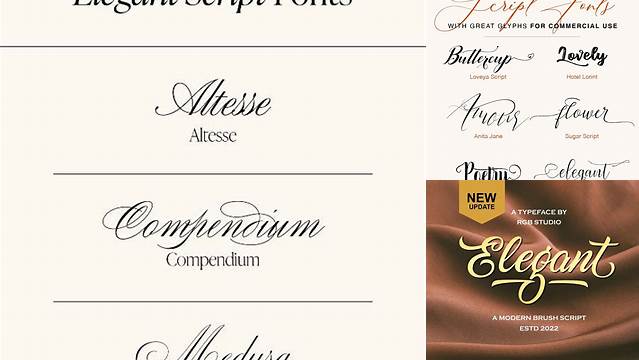
Elegant Script Fonts: Free Downloads For Stunning Designs
Hey guys! Are you looking to add a touch of elegance and sophistication to your designs? Well, you've come to the right place! Nothing beats a beautifully crafted script font to elevate your projects, whether it's for wedding invitations, branding, or simply adding a personal touch to your creative endeavors. Finding the perfect elegant script font doesn't have to break the bank. Letâs dive into the world of free downloads and explore how you can get your hands on some stunning typefaces.
1. What Makes a Script Font Elegant?
So, what exactly makes a script font elegant? It's more than just fancy swirls and loops. An elegant script font often features a harmonious balance of thick and thin strokes, graceful curves, and a sense of fluidity that mimics handwriting. The spacing between letters, known as kerning, also plays a crucial role in readability and overall aesthetic appeal. Think of fonts like Brush Script, Pacifico, or even Great Vibes â they all have a certain charm and refinement that sets them apart. When choosing an elegant script font, consider the overall tone you want to convey. Is it classic and timeless, or modern and playful? The right font can set the mood and make your design truly shine. The beauty of an elegant script font is its ability to convey emotion and personality. It adds a human touch that can't be replicated by more rigid, geometric fonts. Whether you're designing a logo, creating a poster, or crafting a heartfelt message, the right elegant script font can make all the difference.
5. Using Script Fonts in Branding
When it comes to branding, an elegant script font can be a powerful tool. It can add a touch of personality and sophistication to your logo, website, and marketing materials. However, it's important to use script fonts strategically. Overusing them can make your brand look cluttered or unprofessional. Instead, consider using a script font for your logo or headline and pairing it with a more readable sans-serif font for body text. This creates a nice contrast and ensures that your message is clear and easy to read. Also, think about your target audience and the overall image you want to project. A delicate, flowing script font might be perfect for a wedding planner, while a bolder, more modern script font might be better suited for a fashion brand. Make sure that the elegant script font you choose complements your overall brand identity and resonates with your target audience. The font becomes part of the brand's personality, so choose wisely! Choosing the right font helps to create a consistent and memorable brand experience.
6. Pairing Script Fonts with Other Fonts
Pairing fonts is an art, guys! An elegant script font looks amazing, but using it alone for everything can be overkill. The key is to find a complementary font that balances the script's flair with readability. A classic pairing is a script font with a simple sans-serif font. Think of something like Open Sans or Montserrat. These fonts are clean and unobtrusive, allowing the script font to take center stage. You could also pair a script font with a serif font, like Lora or Merriweather, for a more traditional look. Experiment with different combinations until you find something that feels right. The goal is to create a visual hierarchy that guides the reader's eye and makes your design easy to navigate. When pairing fonts, pay attention to things like font weight, size, and letter spacing. The elegant script font you choose should complement, not clash with, your secondary fonts. With a little practice, you'll be a font-pairing pro in no time! Remember, the right combination can elevate your design and make it truly stand out.
7. Script Fonts for Wedding Invitations
Planning a wedding? An elegant script font is practically a must-have for your invitations! It adds a touch of romance and sophistication that's perfect for setting the tone for your special day. When choosing a script font for wedding invitations, consider the overall style of your wedding. Is it formal and traditional, or more relaxed and bohemian? A classic, flowing script font like Shelley Allegro Script is perfect for a traditional wedding, while a more modern, handwritten font like * āĻĢāĻā§āĻā§āϰāĻžāĻĢāĻžāϰ* might be better suited for a casual celebration. Also, think about the readability of the font. While a super ornate script font might look beautiful, it could be difficult for guests to read. Choose a font that's both elegant and legible. To add the ultimate touch, consider adding some flourishes or embellishments to your script font. The elegant script font will become a cherished part of your invitation design. This can be a great way to personalize your invitations and make them truly unique. A beautiful script font can transform your wedding invitations into cherished keepsakes.
8. Designing Logos with Script Fonts
Using an elegant script font in your logo can make your brand stand out, but it's crucial to do it right. Logos need to be versatile and readable at different sizes, so choose a script that remains clear even when it's small. Also, consider how the script reflects your brand's personality. A delicate, flowing script might be perfect for a beauty brand, while a bolder script could work for a creative agency. Think about the colors and imagery that will accompany your logo. The elegant script font you select should complement those elements and contribute to a cohesive brand identity. Test your logo on different backgrounds and in different sizes to ensure it looks good in all contexts. A well-designed logo using a script font can be memorable and create a lasting impression. However, if the script is too hard to read or doesn't align with your brand, it could have the opposite effect. So, take your time and experiment with different options until you find the perfect fit.
9. Free vs. Premium Script Fonts: What's the Difference?
Okay, let's talk about free versus premium fonts. While there are tons of great elegant script fonts available for free, premium fonts often offer a higher level of quality, more extensive character sets, and better support from the font designer. Premium fonts are also less likely to be overused, which can help your designs stand out. However, that doesn't mean you should automatically dismiss free fonts. Many talented designers offer high-quality fonts for free, especially for personal use. The key is to do your research and carefully evaluate each font before using it. Consider things like the legibility, versatility, and overall aesthetic appeal. If you're working on a professional project, investing in a premium font might be worth it. But if you're just starting out or working on a personal project, there are plenty of great elegant script font options available for free. Ultimately, the best font is the one that meets your needs and fits your budget.
10. The Importance of Kerning in Script Fonts
Kerning, guys, is super important, especially with elegant script fonts. Kerning refers to the spacing between individual letters. In script fonts, where letters often connect, kerning can make or break the readability of your text. Poor kerning can result in letters that are too close together or too far apart, making the word look awkward and difficult to read. Good kerning ensures that the letters flow smoothly and evenly, creating a visually appealing and legible word. Many professional fonts come with built-in kerning tables that automatically adjust the spacing between letters. However, you might need to manually adjust the kerning in some cases, especially if you're using a free font. Most design software allows you to adjust the kerning using the character panel. Experiment with different kerning values until you achieve a balanced and harmonious look. Mastering kerning is essential for creating professional-looking typography with elegant script fonts. Don't underestimate the power of those small adjustments! They can make a huge difference in the overall appearance of your design.
11. Calligraphy-Inspired Script Fonts
Elegant script fonts often draw inspiration from traditional calligraphy. These fonts mimic the flowing strokes and graceful curves of hand-lettered calligraphy, adding a touch of artistry and sophistication to your designs. Calligraphy-inspired fonts can range from classic and formal to modern and playful, so there's something for every style. When choosing a calligraphy-inspired script font, consider the overall mood you want to create. A formal calligraphy font like Edwardian Script ITC might be perfect for wedding invitations or certificates, while a more casual calligraphy font like āύā§āĻĻāĻž could be used for branding or social media graphics. Calligraphy-inspired fonts often have elaborate flourishes and embellishments, adding to their visual appeal. However, it's important to use these elements sparingly, as overusing them can make your design look cluttered. The elegant script font can evoke the timeless elegance of calligraphy. Experiment with different calligraphy-inspired fonts to find the perfect one for your project. These fonts add a personal touch that's hard to resist.
12. Modern Script Fonts for a Contemporary Look
If you're looking for a more contemporary feel, modern script fonts are the way to go. These fonts often feature cleaner lines, simpler shapes, and a more minimalist aesthetic than traditional script fonts. Modern script fonts are perfect for branding, websites, and other designs that need a touch of elegance without feeling too stuffy. When choosing a modern script font, consider the overall tone of your design. A bold, geometric script font like āĻžāĻĻāĻŋāϝāĻŧāĻž might be perfect for a tech startup, while a lighter, more delicate script font like āϰā§āĻļāĻŽāĻž could be used for a fashion brand. Modern script fonts often pair well with sans-serif fonts, creating a balanced and contemporary look. The elegant script font you use can contribute to a sleek and stylish design. These fonts are a great way to add personality to your project without sacrificing readability.
13. The Best Script Fonts for Logos
Creating a memorable logo requires the right font, and an elegant script font can be a great choice. However, not all script fonts are created equal when it comes to logo design. The best script fonts for logos are those that are both visually appealing and highly legible, even at small sizes. Consider the personality of your brand when choosing a script font. A delicate, flowing script might be perfect for a beauty or wellness brand, while a bolder, more assertive script could work for a creative agency or tech company. The elegant script font should also be scalable and versatile, looking good on both a website and a business card. Avoid script fonts that are too ornate or difficult to read, as these can detract from the overall impact of your logo. Test your logo with different script fonts and get feedback from others to see which ones resonate best. A well-chosen script font can elevate your logo and make your brand stand out from the competition.
14. Script Fonts for Social Media Graphics
In the fast-paced world of social media, eye-catching visuals are essential for grabbing attention. An elegant script font can add a touch of personality and flair to your social media graphics, helping your posts stand out from the crowd. When using script fonts for social media, it's important to prioritize readability. Choose a script that is clear and easy to read, even on small screens. Avoid script fonts that are too ornate or stylized, as these can be difficult to decipher. Also, consider the overall tone of your social media feed. A playful, handwritten script might be perfect for a lifestyle brand, while a more formal script could be used for a professional services company. The elegant script font should complement your brand's voice and aesthetic. Experiment with different script fonts and color combinations to create social media graphics that are both visually appealing and on-brand. With the right script font, you can create a consistent and engaging social media presence.
15. Handwriting Script Fonts for a Personal Touch
If you want to add a personal and authentic touch to your designs, handwriting script fonts are an excellent choice. These fonts mimic the look and feel of natural handwriting, creating a warm and inviting aesthetic. Handwriting fonts are perfect for invitations, greeting cards, and other projects that require a personal touch. When choosing a handwriting script font, consider the overall style you want to convey. A neat and legible handwriting font might be suitable for professional correspondence, while a more whimsical and expressive handwriting font could be used for personal projects. The elegant script font should reflect the personality of the writer. Handwriting fonts often have slight variations in letterforms and spacing, adding to their authenticity. Use handwriting fonts sparingly, as overusing them can make your design look cluttered. A well-chosen handwriting font can add a touch of warmth and personality to any project.
16. Vintage Script Fonts for a Retro Feel
For designs that evoke a sense of nostalgia and old-world charm, vintage script fonts are the perfect choice. These fonts often feature ornate details, swashes, and serifs, reminiscent of vintage signage and advertising. Vintage script fonts are ideal for creating logos, posters, and packaging designs with a retro aesthetic. When selecting a vintage script font, consider the specific era you want to evoke. A Victorian-era script might be perfect for a tea brand, while a mid-century modern script could work for a retro diner. The elegant script font you select should reflect the aesthetic of the past. Vintage script fonts often have a distressed or textured appearance, adding to their authenticity. Use vintage script fonts sparingly, as overusing them can make your design look dated. A well-chosen vintage script font can transport your audience back in time.
17. Elegant Cursive Fonts: A Classic Choice
Elegant cursive fonts remain a timeless choice for conveying sophistication and grace. These fonts are characterized by their flowing, connected letters, creating a sense of fluidity and refinement. Cursive fonts are often used for invitations, certificates, and other formal documents. When selecting an elegant cursive font, consider the legibility of the typeface. Choose a cursive font that is easy to read, even at smaller sizes. The elegant script font should also have a balanced and harmonious appearance. Cursive fonts can be paired with serif or sans-serif fonts to create a visually appealing contrast. Use cursive fonts sparingly, as overusing them can make your design look cluttered. A well-chosen cursive font can add a touch of classic elegance to any project.
18. Decorative Script Fonts: Adding Flair to Designs
When you need to inject personality and visual interest into your projects, decorative script fonts are your go-to solution. These fonts often feature unique flourishes, embellishments, and unconventional letterforms, adding a touch of whimsy and artistry to your designs. Decorative script fonts are perfect for headlines, posters, and other display purposes. When selecting a decorative script font, consider the overall tone of your project. Choose a font that complements the message you want to convey. The elegant script font should also be legible, even with its decorative elements. Decorative script fonts can be paired with simpler fonts to create a balanced and visually appealing design. Use decorative script fonts sparingly, as overusing them can overwhelm your audience. A well-chosen decorative script font can transform an ordinary design into something extraordinary.
19. Script Fonts for Watermarks: Protecting Your Work
Elegant script fonts can be used to create stylish and effective watermarks for your photos and designs. A watermark is a semi-transparent overlay that helps protect your work from unauthorized use. When creating a watermark with a script font, choose a font that is legible and easily recognizable. The elegant script font should also be subtle enough not to distract from the underlying image. Position your watermark strategically, typically in a corner or across the center of the image. Adjust the opacity of the watermark to make it less intrusive. A well-designed watermark can deter copyright infringement and help you protect your creative work.
20. Monoline Script Fonts: Simple and Clean Elegance
Monoline script fonts offer a minimalist approach to script typography. These fonts feature strokes of consistent thickness, creating a clean and modern look. Monoline scripts are perfect for logos, branding, and other designs that require a subtle touch of elegance. When selecting a monoline script font, consider the overall weight and spacing of the letters. The elegant script font should be legible and balanced. Monoline scripts can be paired with sans-serif or geometric fonts to create a contemporary design. Use monoline script fonts sparingly, as overusing them can make your design look monotonous. A well-chosen monoline script font can add a touch of understated elegance to any project.
21. Brush Script Fonts: A Hand-Painted Look
For designs that need a natural, hand-painted aesthetic, brush script fonts are the ideal choice. These fonts mimic the texture and irregularities of brushstrokes, creating a sense of authenticity and artistry. Brush scripts are often used for posters, logos, and other designs that want to feel handmade. When selecting a brush script font, consider the level of texture and detail in the strokes. The elegant script font should be legible and visually appealing. Brush scripts can be paired with sans-serif or handwritten fonts to create a cohesive design. Use brush script fonts strategically, as overusing them can make your design look cluttered. A well-chosen brush script font can add a touch of organic charm to any project.
22. Choosing the Right Weight for Script Fonts
The weight of your elegant script font can significantly impact its readability and visual appeal. Font weight refers to the thickness of the strokes in the letters. Lighter weights can convey elegance and delicacy, while heavier weights can add boldness and emphasis. When choosing a weight for your script font, consider the size of the text and the overall design context. Lighter weights may be suitable for larger text sizes, while heavier weights are often needed for smaller text sizes to maintain legibility. The elegant script font you choose should be appropriate for the intended use. Experiment with different weights to see which one works best for your project. A well-chosen weight can enhance the impact of your script font and make your design more effective.
23. The Role of Swashes in Script Fonts
Swashes are decorative extensions or flourishes that are often added to the beginning or end of letters in elegant script fonts. These swashes can add a touch of elegance, personality, and visual interest to your designs. However, it's important to use swashes judiciously, as overusing them can make your design look cluttered and difficult to read. When using swashes, ensure that they complement the overall style of your script font. The elegant script font and swashes should work together harmoniously. Avoid swashes that are too elaborate or distracting. A well-placed swash can enhance the beauty of your script font and add a touch of sophistication to your design.
24. Script Fonts and Readability: Finding the Balance
While elegant script fonts can add beauty and personality to your designs, it's crucial to prioritize readability. A script font that is too ornate or difficult to read can frustrate your audience and detract from your message. When choosing a script font, consider the size of the text, the background color, and the overall design context. The elegant script font should be legible and easy to scan. Avoid script fonts that have overly complex letterforms or excessive ornamentation. Test your script font with different text sizes and viewing conditions to ensure that it remains readable. A well-chosen script font strikes a balance between elegance and readability.
25. Mixing Script Fonts: When and How to Do It
Mixing elegant script fonts can be a tricky endeavor, but when done correctly, it can create a visually stunning and sophisticated design. However, it's important to exercise caution and follow a few guidelines to avoid creating a cluttered or confusing design. When mixing script fonts, choose fonts that have contrasting styles and weights. The elegant script font should have a distinct character from each other. Avoid mixing script fonts that are too similar, as this can create visual dissonance. Use one script font for headings or titles and another for body text or accents. A well-executed mix of script fonts can add depth and visual interest to your design.
26. Using Script Fonts in Video Editing
Elegant script fonts can be incorporated into video editing projects to add a touch of sophistication and style. Script fonts can be used for titles, subtitles, and lower thirds. When using script fonts in video, ensure that they are legible and easy to read on screen. The elegant script font should be large enough to be seen clearly, even on smaller screens. Consider the pacing and timing of your video when using script fonts. Ensure that the text is on screen long enough for viewers to read it comfortably. A well-chosen script font can enhance the visual appeal of your video and add a touch of professionalism.
27. Script Fonts for Print vs. Digital Design
When selecting an elegant script font, it's important to consider whether your design will be used in print or digital media. Some script fonts are better suited for print, while others are optimized for digital display. For print designs, choose script fonts that have crisp, clean lines and are legible at various sizes. For digital designs, select script fonts that are optimized for screen rendering and are easy to read on different devices. The elegant script font you choose should be appropriate for the intended medium. Test your script font on different devices and in various print formats to ensure that it looks its best.
28. The Future of Script Fonts in Design
Elegant script fonts continue to evolve and adapt to changing design trends. As technology advances, new and innovative script fonts are being created with unique features and capabilities. The future of script fonts in design is likely to be characterized by greater versatility, accessibility, and customization. Designers will have access to a wider range of script fonts that can be easily adapted to different design contexts. The elegant script font will remain an important tool for designers looking to add a touch of personality, elegance, and sophistication to their projects.
29. Best Practices for Using Free Script Fonts
Using elegant script fonts is fun and adds so much character to your designs. But, there are still a few things to consider. Here are some best practices for using free script fonts: Always, always, ALWAYS check the license agreement! Make sure it covers how you want to use the font, whether it's for a personal project or commercial use. Next, readability is key. A super fancy script might look amazing, but if nobody can read it, what's the point? Make sure your text is clear and easy to understand. Also, don't overuse script fonts. A little goes a long way. Use it for headlines or accents, but not for large blocks of text. Pairing it with a simple sans-serif font can create a nice balance. Last, don't be afraid to experiment! Try out different fonts and see what works best for your project. It's all about finding the perfect fit. By following these best practices, you can make the most of free script fonts and elevate your designs.
30. Troubleshooting Common Script Font Issues
Okay, so sometimes things go wrong. You downloaded this amazing elegant script font, but it's not showing up in your design software. What do you do? First, try restarting your computer. Sometimes, that's all it takes. If that doesn't work, make sure the font is actually installed. On Windows, you can check in the Fonts folder in the Control Panel. On a Mac, open Font Book. If the font is there but still not showing up, try restarting your design software. If it's still not working, there might be a compatibility issue. Some fonts don't work well with certain software. In that case, you might need to find a different font. Also, watch out for corrupted font files. If the font file is damaged, it might not install properly. Try downloading it again from a different source. And finally, make sure you're using the correct font name. Sometimes, the font name in the software is different from the file name. By following these troubleshooting tips, you can usually resolve any common issues with script fonts and get back to designing. Good luck!